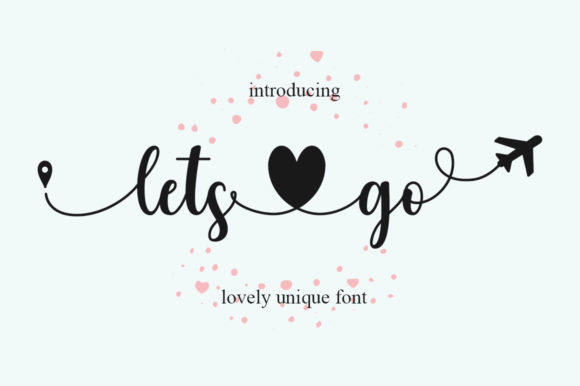
Are you in search of a versatile and stylish font to enhance your designs? Look no further than Let's Go Font! This script font, created by jauzadesign, boasts a natural and unique style that can take your design projects to new heights.
Let's Go Font is more than just a font - it's a sweet and friendly companion that can add warmth and personality to your projects. Whether you're creating stylish quotes, elegant wedding cards, trendy magazines, or eye-catching fashion designs, Let's Go Font has got you covered.
This font is the perfect choice for creative branding projects, where you need to make a lasting impression on your audience. Its captivating and memorable design can help your brand stand out from the competition.
Album covers, book covers, and movie titles also benefit from the charm and beauty of Let's Go Font. Imagine the impact that this font could have on your project - it's sure to leave a lasting impression on your audience.
Let's Go Font is a versatile and flexible font that can adapt to your design needs. Its bold and expressive curves, coupled with its eye-catching design, can be used in a variety of design projects. The possibilities are endless!